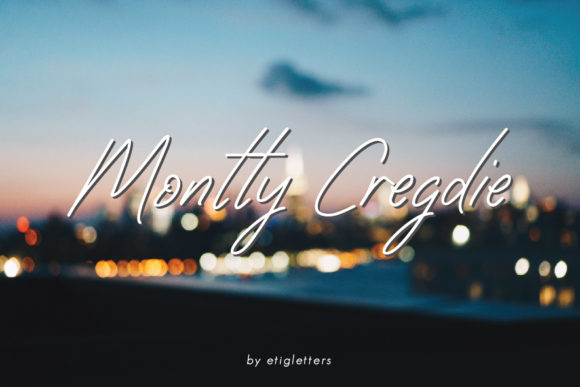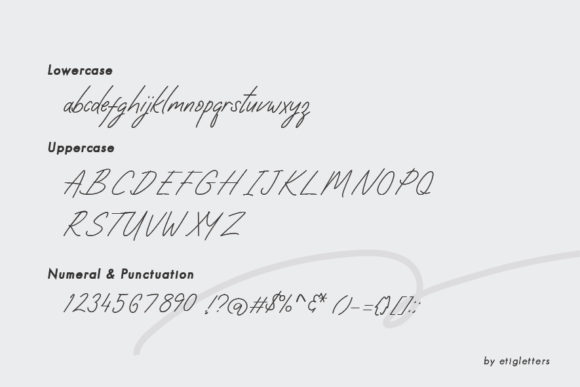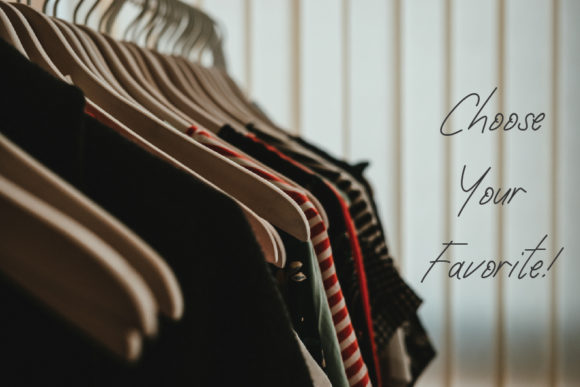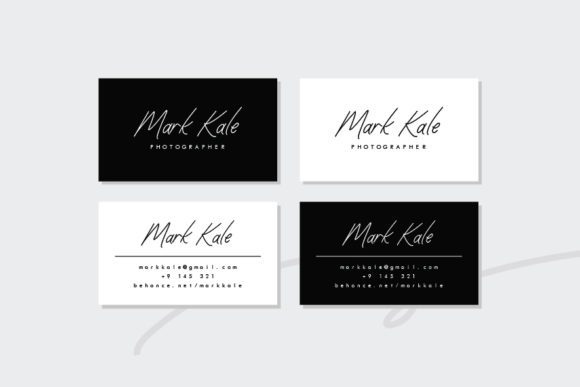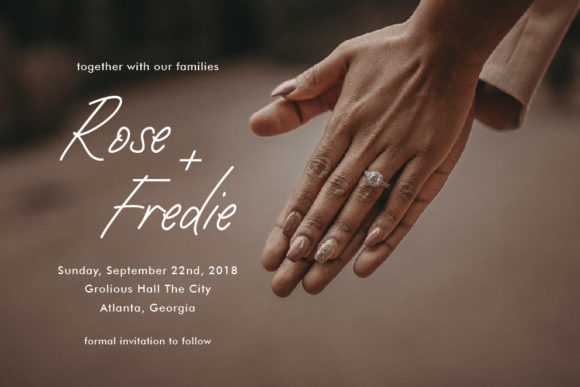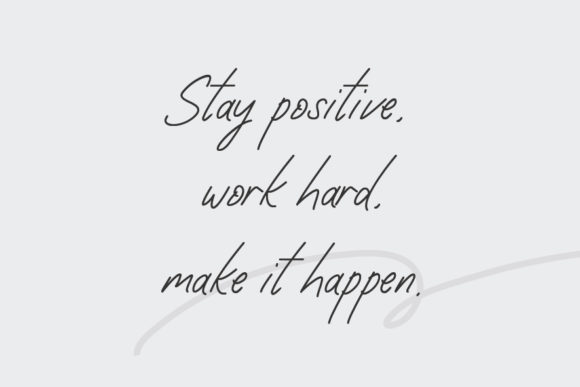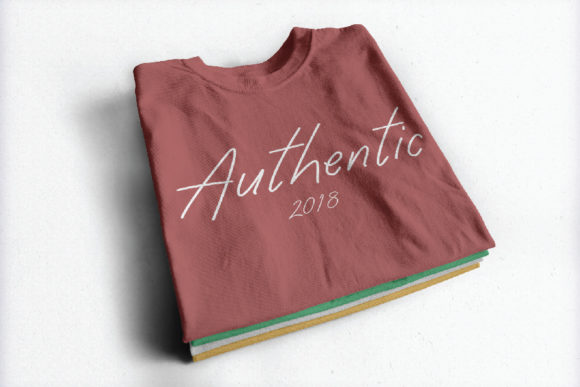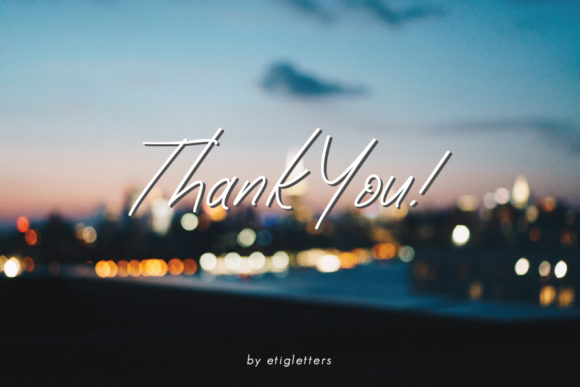
Montty Cregdie Font
About Montty Cregdie Font
Montty Cregdie is a smooth and light handwritten font that will allow you to create incredibly authentic designs.